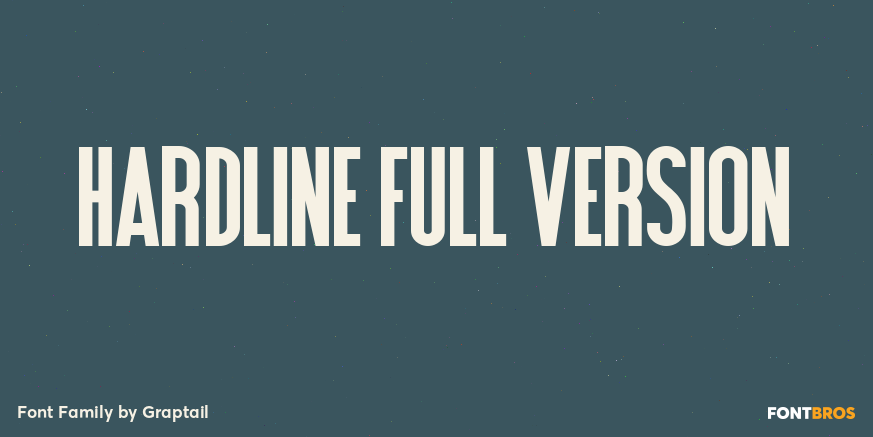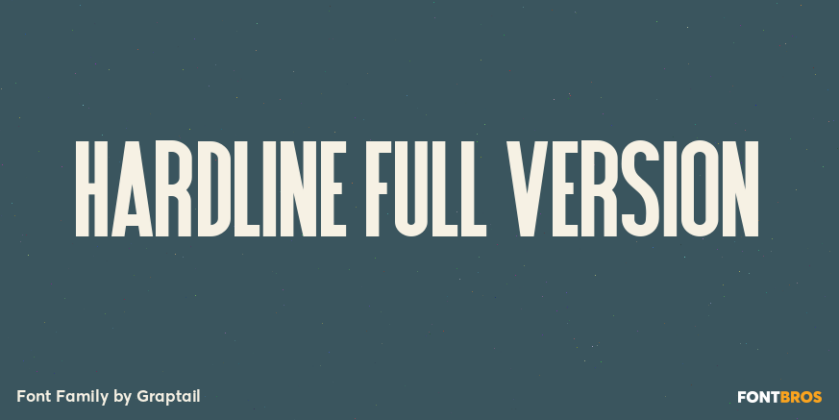
Hardline Full Version
About Hardline Full Version
Hardline is a condensed display typeface. It\’s strong appearance will be useful when creating commanding titles and headlines that demand attention. Hardline is a slightly condensed face, but has the thickness to provide all the stability you need. Hardline…